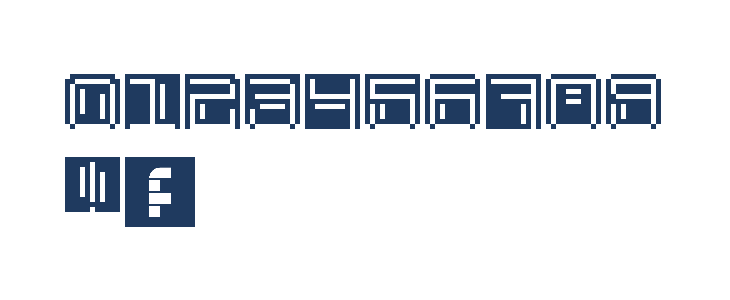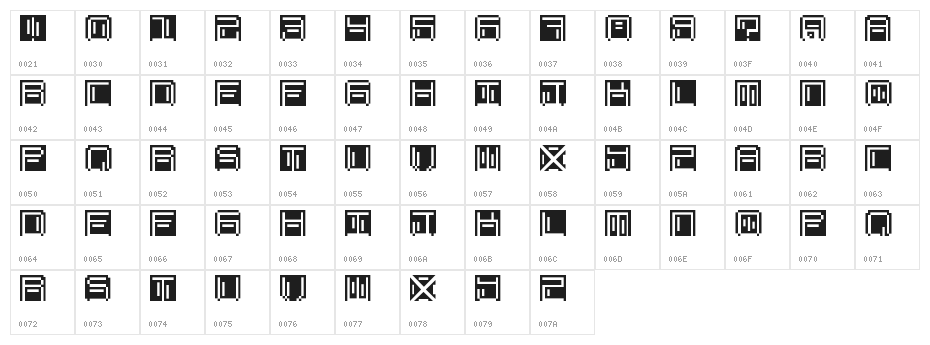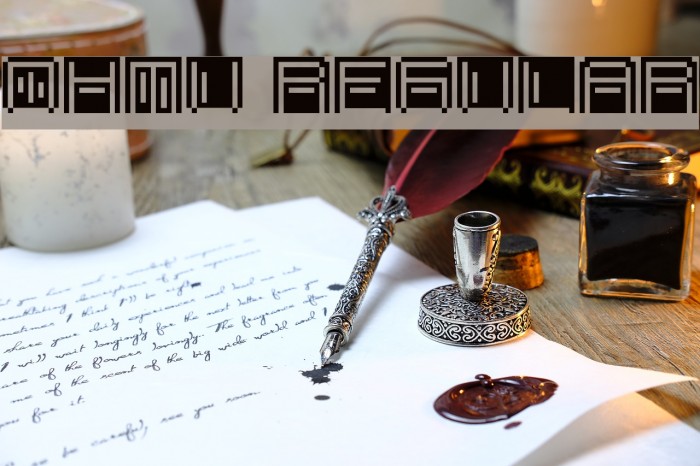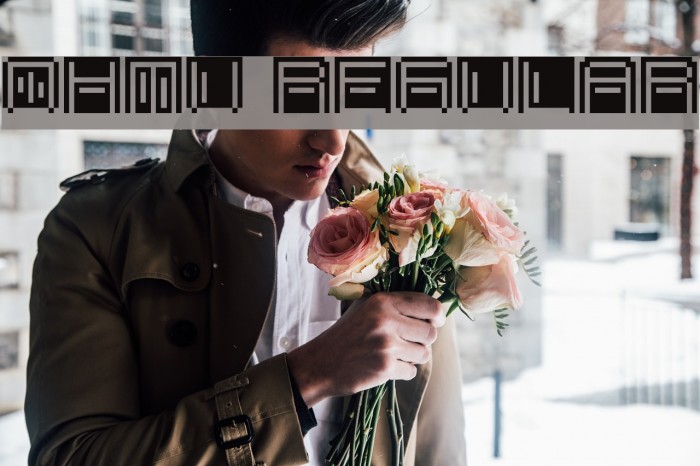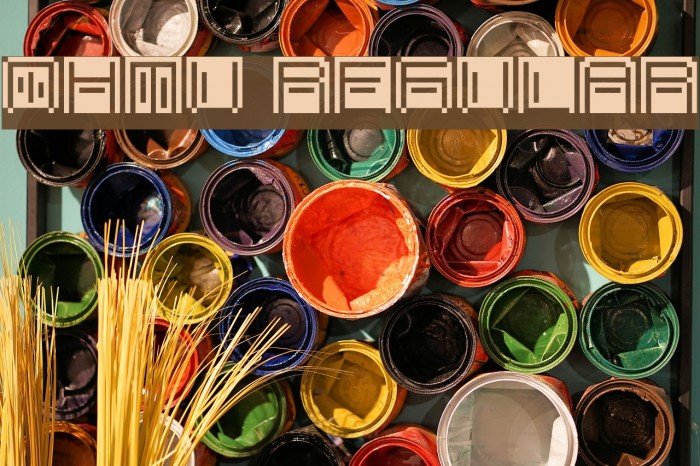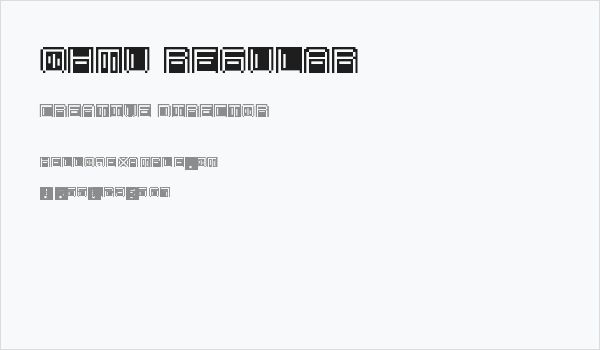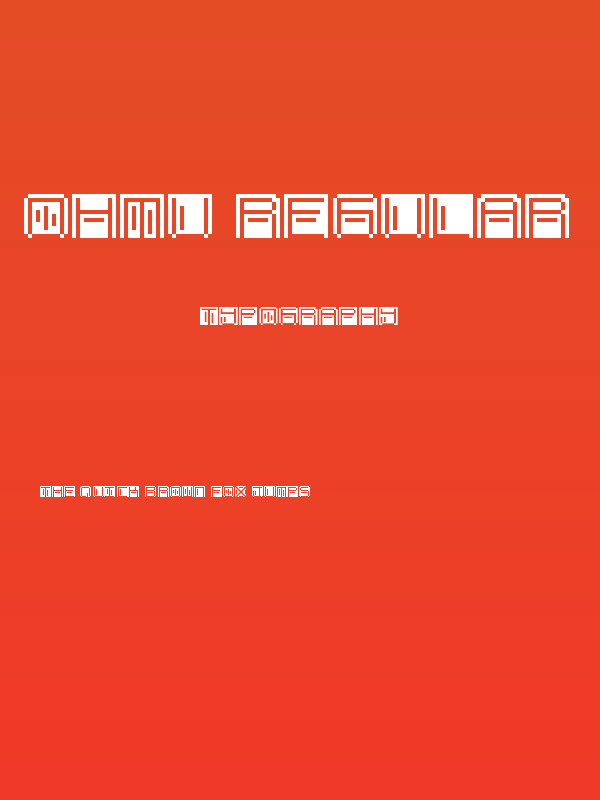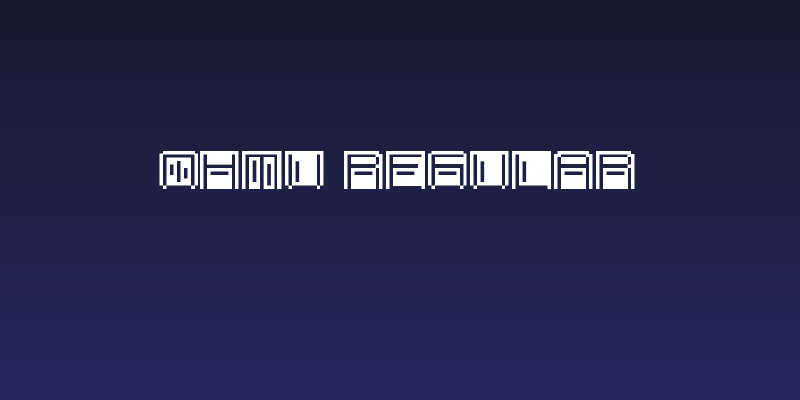
OHMU Regular Font
OHMU Regular Description
This font features a bold, geometric design with a futuristic and digital aesthetic. Each character is constructed with a series of straight lines and right angles, giving it a blocky, pixelated appearance reminiscent of early computer graphics or video game typography. The uniformity in line thickness across all characters contributes to a cohesive and structured look. The font's distinct style is characterized by its square shapes and minimal curves, creating a modern and edgy feel. It is highly stylized, making it suitable for projects that require a strong visual impact.
| Proposed Projects | Ideal for video game titles, tech-themed posters, digital art projects, and branding for technology companies. |